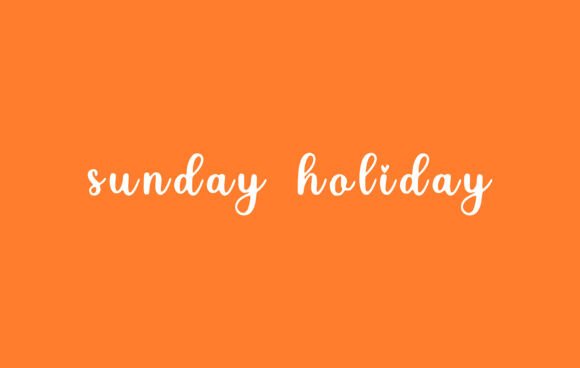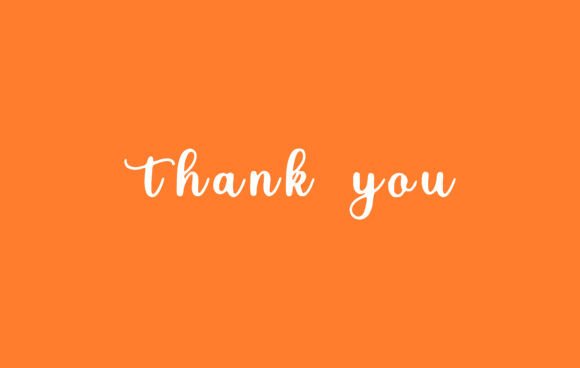
The Perfect Pen Stroke: Unleashing Your Creativity with the Dante Font
Remember the moment when a spark of creativity strikes, and you can almost feel the ideas flowing onto the page? For designers, this moment is often elusive, but with the right tools, it can be within reach. One such tool that can help unlock your creative potential is the Dante Font – an authentic handwritten font that exudes a romantic touch.
Expertly designed to be a true favorite, the Dante Font is perfect for designers who want to elevate their work to new heights. Its legibility makes it suitable for both title and body text, allowing you to experiment with various design possibilities. Whether you’re working on magazine headlines, social media graphics, branding, or even wedding invitations, the Dante Font is an invaluable addition to your design arsenal.
Dante Font Key Features
- Size and Style: Available in 8 font weights, ranging from Light to Black, with corresponding italic styles.
- Unique Characteristics: Features a distinctive, modern design with subtle flair and geometric elements, making it suitable for various design applications.
- Language Support: Offers comprehensive language support, including Latin, Cyrillic, and Greek alphabets, as well as many special characters and symbols.
Dante Font Review
Overall, I think the Dante font has some great qualities that make it a solid choice for certain projects. ✨ First of all, its elegant and refined look makes it perfect for high-end publications or luxury brands. It’s also quite versatile and can be used for a variety of purposes, from body text to headlines.
One of the standout features of Dante is its legibility. The font is designed to be easy to read, even at smaller sizes, which makes it a great choice for digital applications. Additionally, the font’s versatility is a major plus, as it can be used in a range of settings, from modern to traditional.
- ✨ Elegant and refined look
- ✨ High legibility
- ✨ Versatile and can be used for a variety of purposes
Overall, I think the Dante font is a solid choice for certain projects, but it may not be the best fit for every user. It’s worth considering the pros and cons before making a decision.
Tips for Getting the Most Out of Dante Font
Here are some tips for getting the most out of Dante Font:
- Use Dante Font for headings and titles to add a touch of elegance and sophistication.
- Pair Dante Font with a clean and simple sans-serif font for body text to create a visually appealing contrast.
- Experiment with different font sizes and styles to create a unique and eye-catching look.
Alternatives to Dante Font
Playfair Display is a luxurious, high-end serif font ideal for titles, headings, and other prominent text elements. It’s perfect for creating a sophisticated and elegant look in your designs. Compared to Dante Font, Playfair Display has a more ornate and decorative feel, making it suitable for high-end branding and advertising.
Merriweather is a classic, traditional serif font suitable for body text, headings, and titles. It’s a great choice for creating a timeless and sophisticated look in your designs. Compared to Dante Font, Merriweather is more conservative and straightforward, making it ideal for corporate branding, academic materials, and other professional applications.